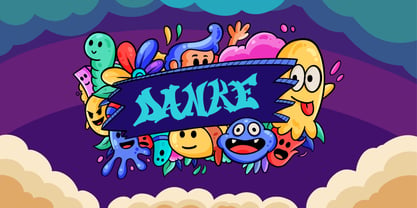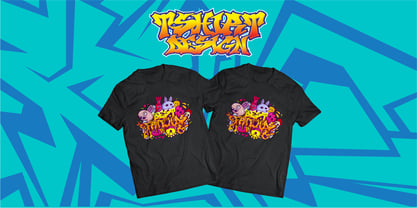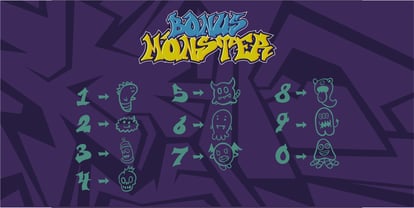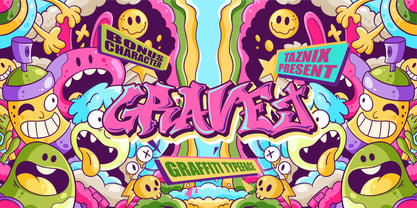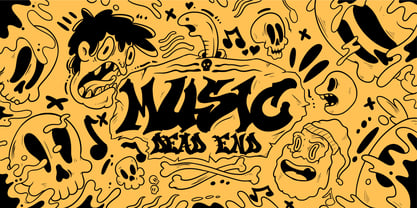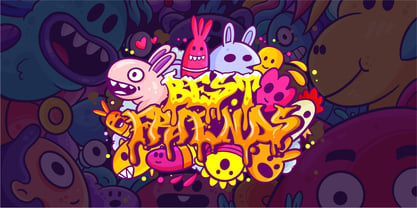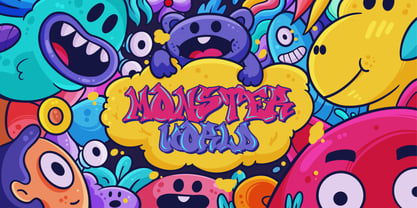
Gravej
The Gravej Font Family was designed by Ricky Hartasni and published by Taznix Creative. Gravej contains 1 styles. More about this family
Unleash the street art energy with GRAVEJ, a unique graffiti-inspired typeface that captures the boldness and creativity of urban culture. With its hand-drawn edges and dynamic strokes, this font brings the edgy, rebellious spirit of street art straight to your projects. Ideal for posters, album covers, branding, and anything that needs a splash of raw, artistic energy. Each letter is carefully crafted to mimic the authentic look of graffiti, ensuring a perfect blend of uniqueness and style. Whether you're designing for a skate brand, music event, or modern lifestyle project, GRAVEJ will make your text pop with a striking, urban edge.